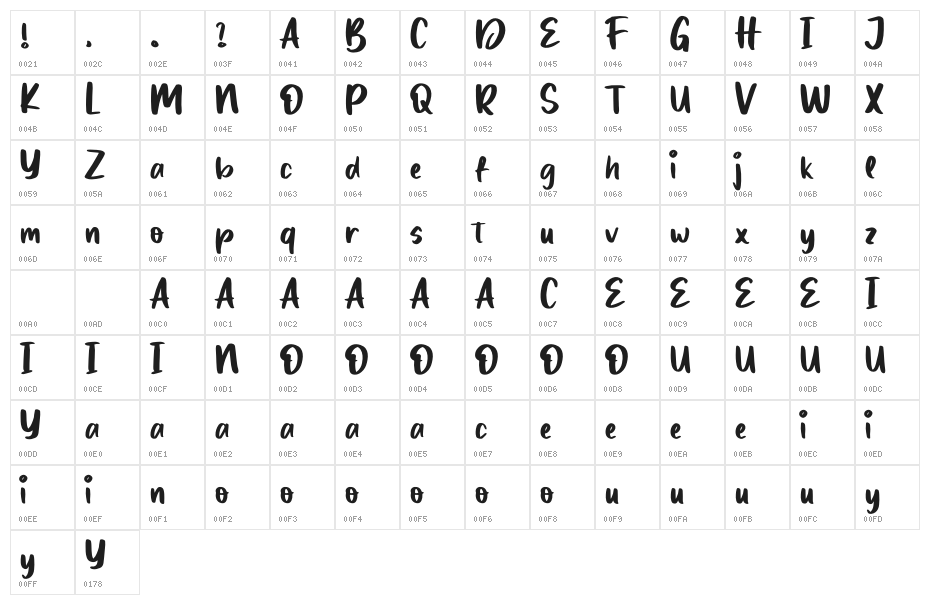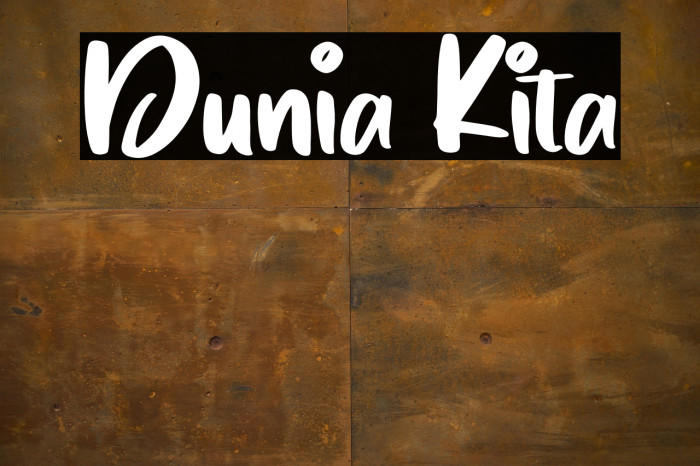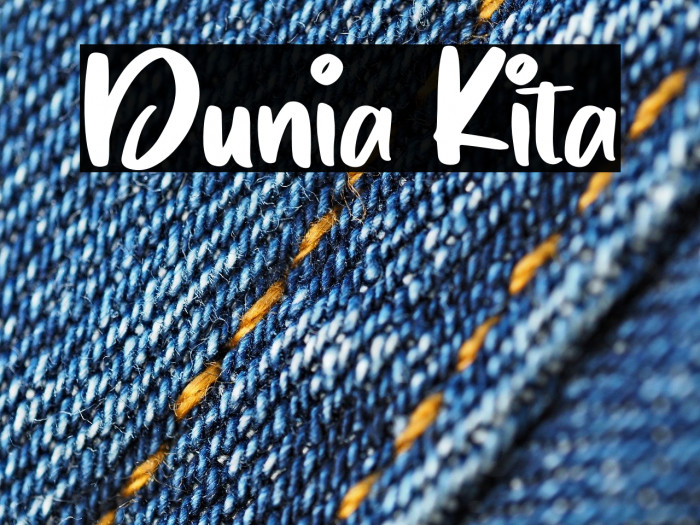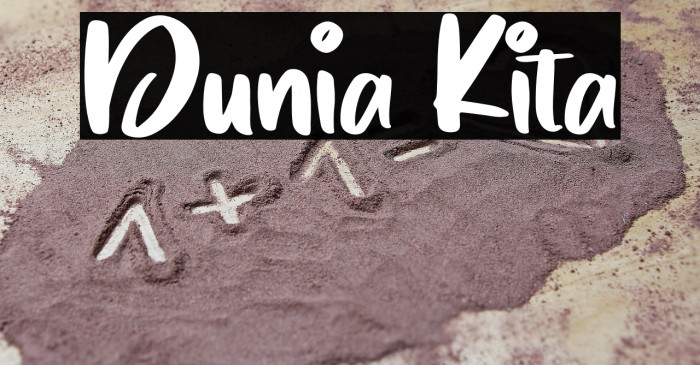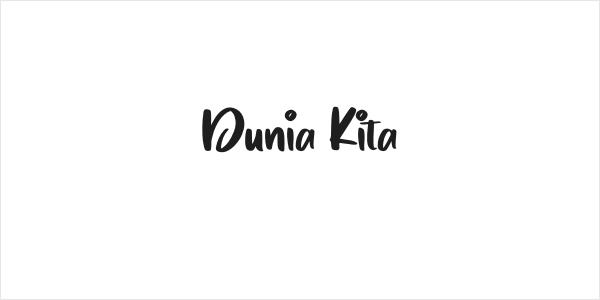
Dunia Kita Font
Dunia Kita Description
This font features a bold and expressive handwritten style, characterized by its thick strokes and playful curves. The uppercase letters are bold and dynamic, with a slight slant that adds a sense of movement. The lowercase letters maintain a consistent style, with rounded edges and a casual, friendly appearance. The font's overall look is modern and artistic, making it suitable for creative projects. The lack of special characters and numbers suggests a focus on alphabetic expression, enhancing its use in artistic and decorative contexts.
| Proposed Projects | Ideal for branding, posters, social media graphics, and creative projects that require a personal touch. |